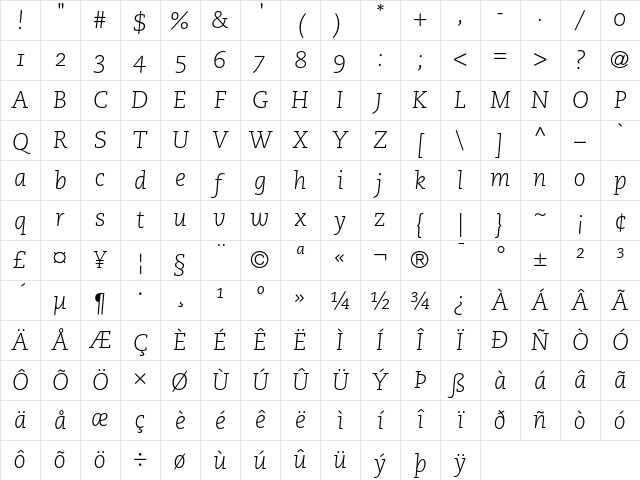
PMN Caecilia 46 Light Italic Oldstyle Figures
Style: 46 Light Italic Oldstyle Figures
Design Context for PMN Caecilia
PMN Caecilia carries the refined structure of traditional serif typography, with bracketed terminals and considered proportions that communicate credibility and craft. The slanted form adds forward momentum and visual energy. Its slender proportions lend an understated elegance to any composition.
Pro Tip: Use PMN Caecilia with generous line-spacing for the most refined reading experience - its light weight benefits from room between lines.